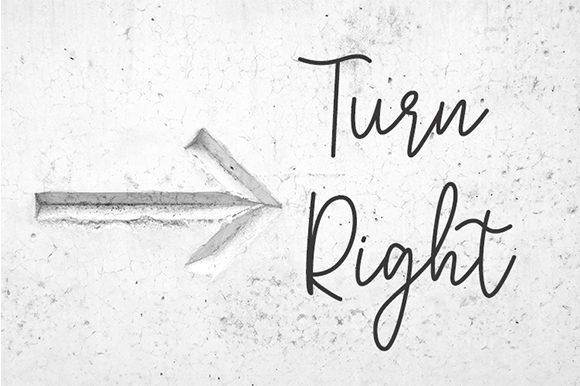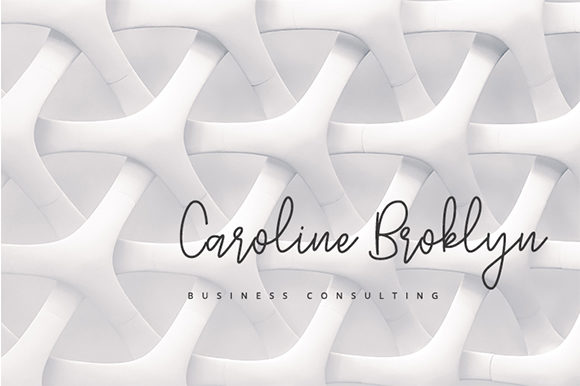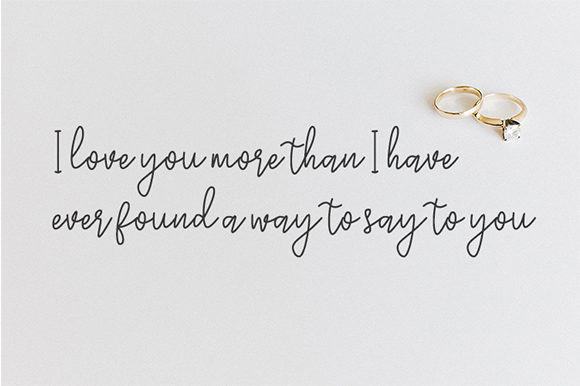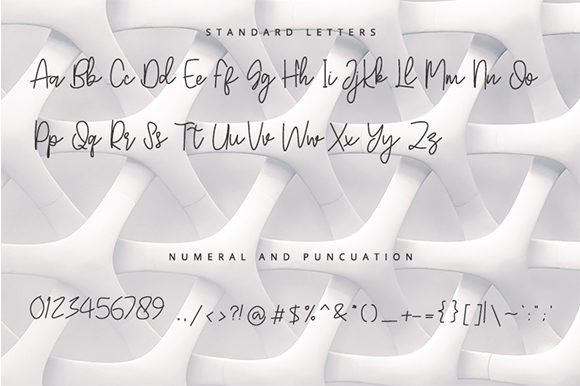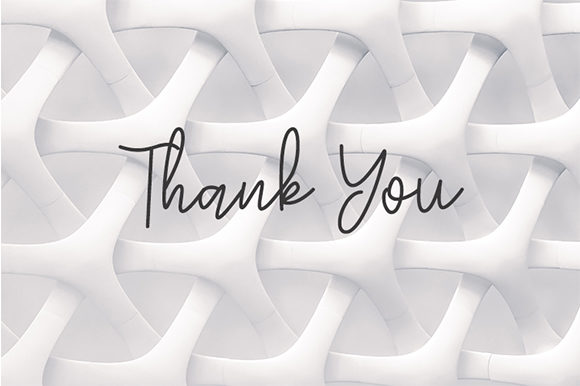
Seraphine Font
About Seraphine Font
Seraphine is a stunning and cool handwritten font with a beautiful feel. It will turn any design project into a true standout!